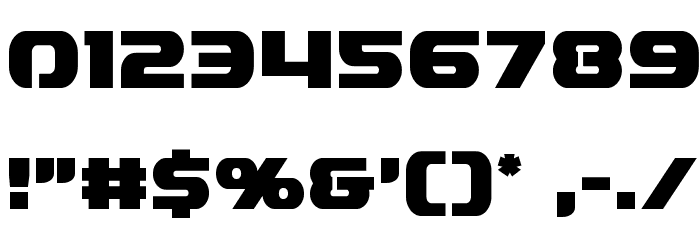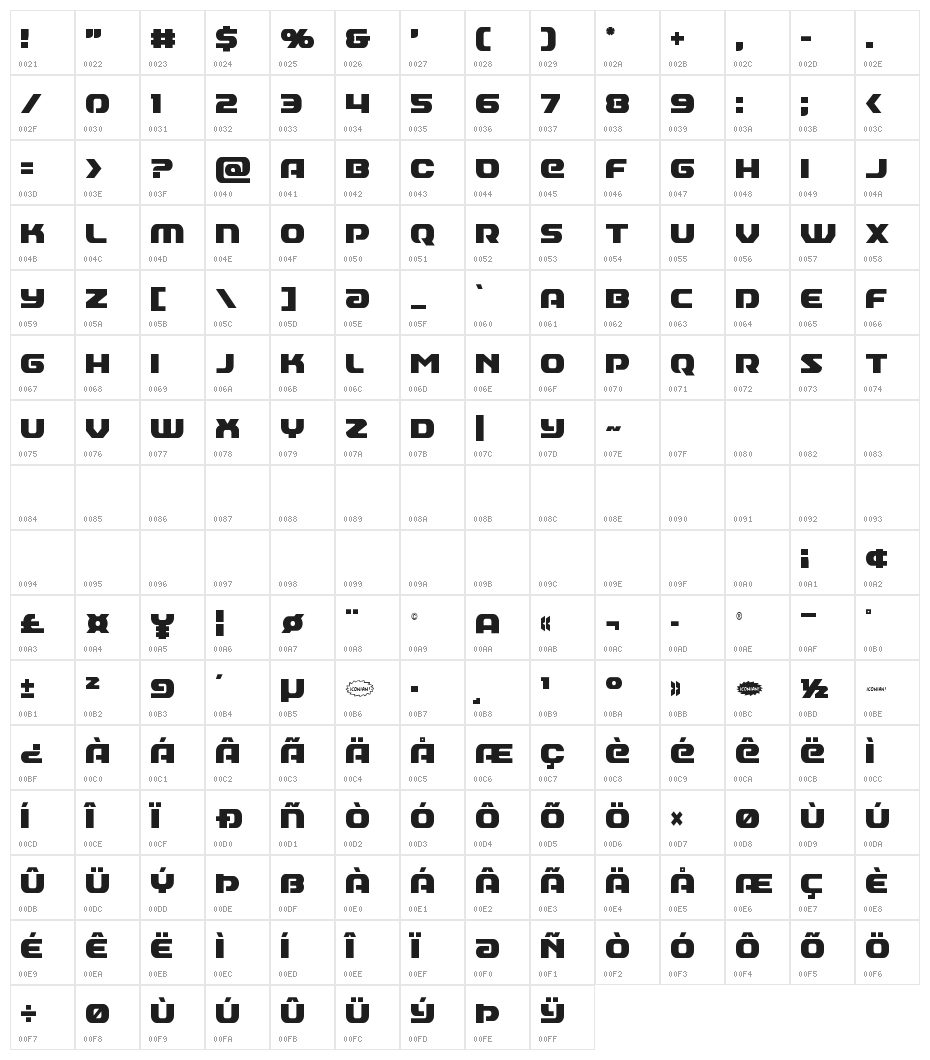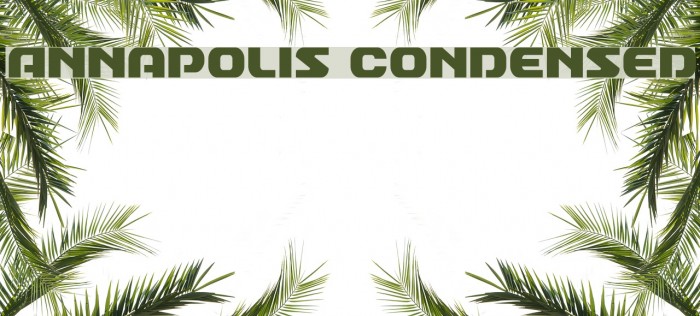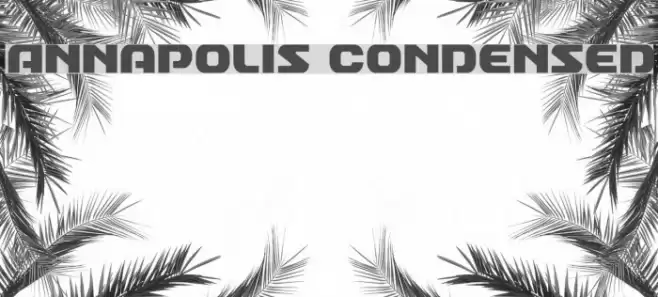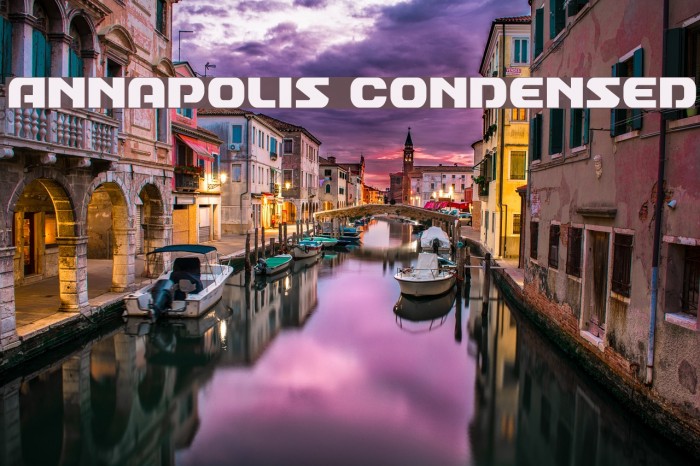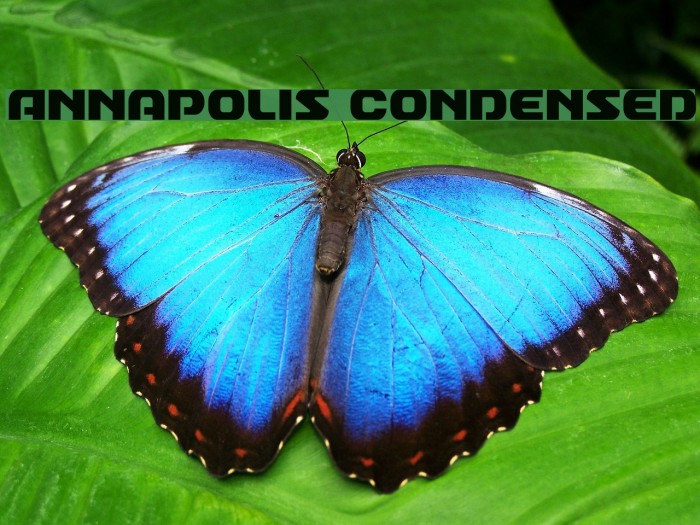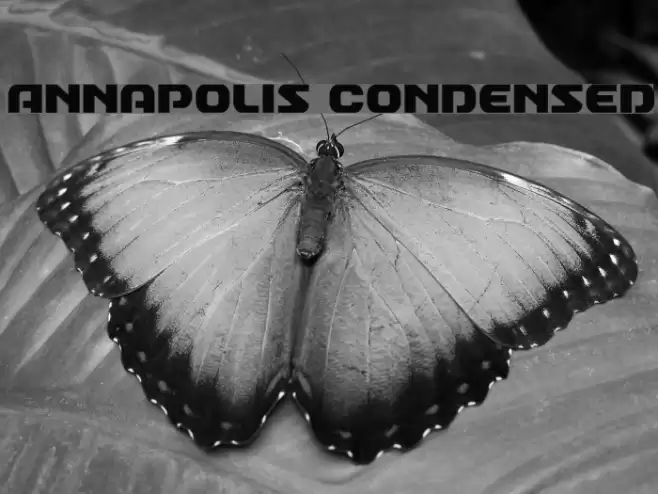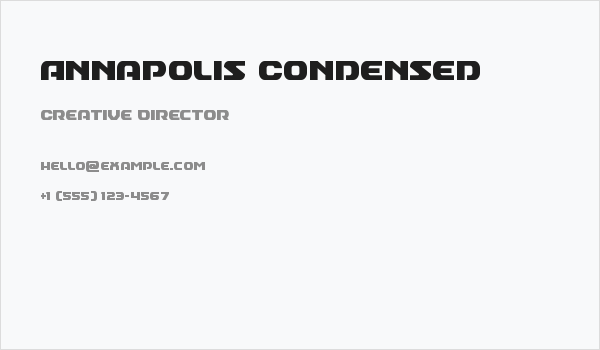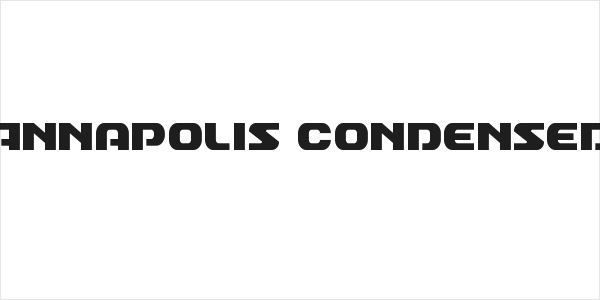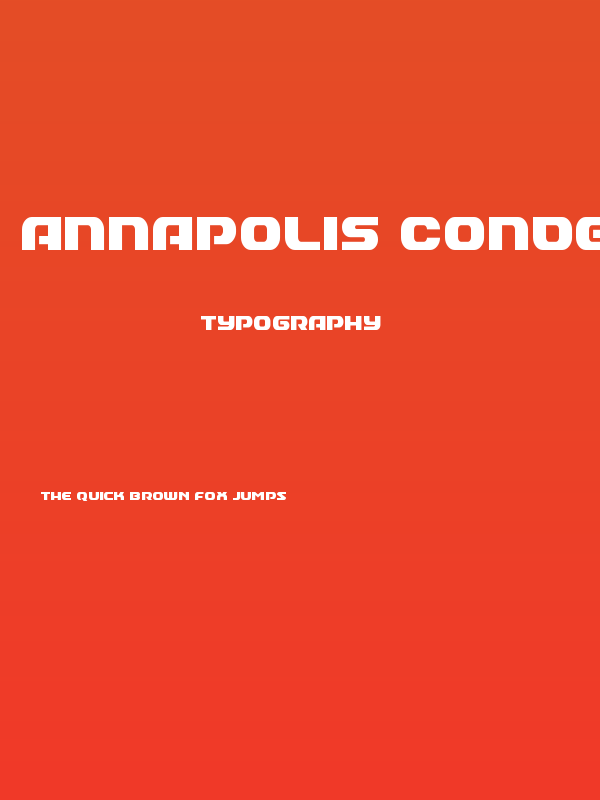
Annapolis Condensed Font
Annapolis Condensed Description
This font features a bold and condensed style, characterized by its thick, uniform strokes and geometric shapes. The uppercase letters are particularly striking, with a strong presence and minimalistic design. The lowercase letters maintain the same boldness, ensuring consistency across the typeface. Numbers and special characters are designed to match the overall aesthetic, providing a cohesive look. The font's condensed nature makes it suitable for space-saving applications while still maintaining readability.